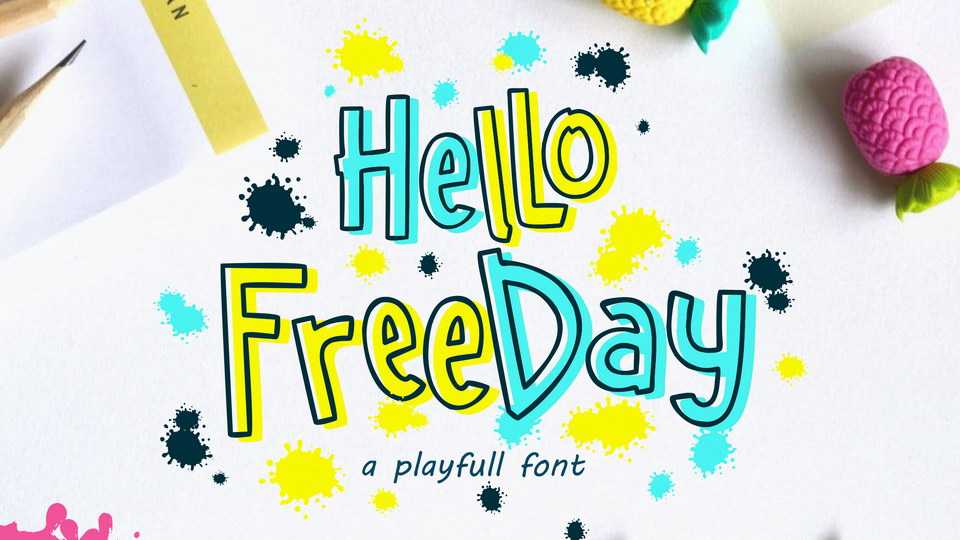
Download Hello Freeday font, a fun and playful handwritten typeface with a whimsical twist in Regular and Outlined styles. Hello Freeday fonts are perfect for cards, letters, posters, party decoration, flyers, posters and more.